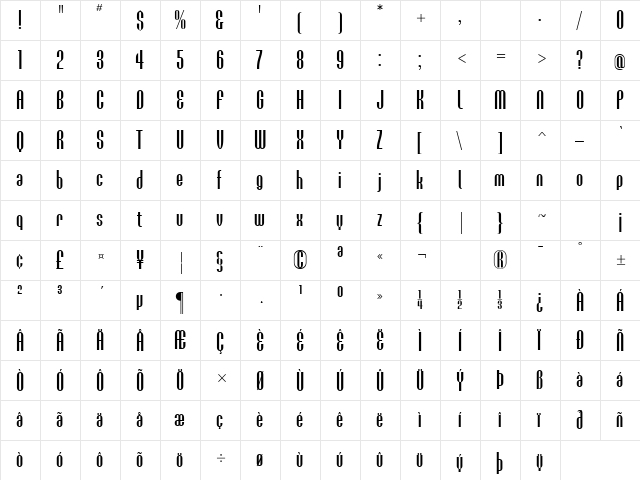
EunoiaCondensedRound Regular
Design Context for EunoiaCondensedRound Typeface
EunoiaCondensedRound softens its letterforms with rounded terminals, giving it an approachable, friendly quality that works well in consumer-facing and digital contexts.
Well-suited to UI design, mobile interfaces, and any brand that wants approachability without sacrificing clarity.
Font Pairing: Pairs well with a rounded or humanist sans for body copy, maintaining the friendly tone without relying on EunoiaCondensedRound to carry extended reading.
Pro Tip: Use EunoiaCondensedRound for UI elements, app interfaces, and anywhere a friendly, approachable tone needs to be maintained without sacrificing clarity.